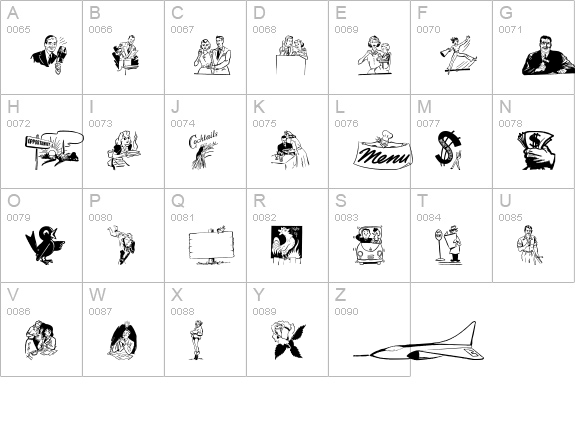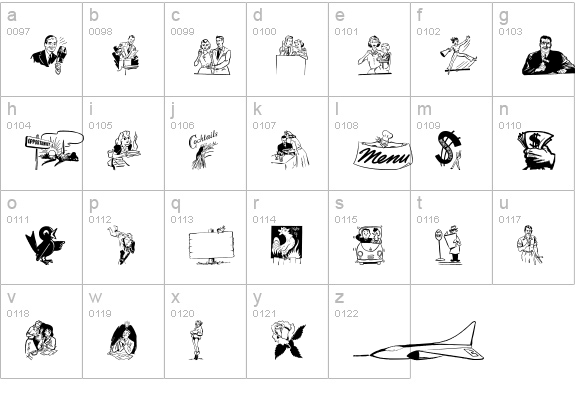
Cobb Shinn Stock Cuts VI is a unique and eye-catching font that combines vintage charm with modern design elements. This versatile typeface features intricate details and a playful, hand-drawn style that is sure to make your projects stand out. The irregular shapes and quirky letterforms give Cobb Shinn Stock Cuts VI a one-of-a-kind look that is perfect for logos, branding, invitations, and more. Best of all, Cobb Shinn Stock Cuts VI is available for free download at FontsMarket.com. Whether you're a designer looking to add a touch of whimsy to your work or a hobbyist looking for a fun and creative font to play with, Cobb Shinn Stock Cuts VI is sure to inspire and delight. Download this unique font today and let your creativity shine!